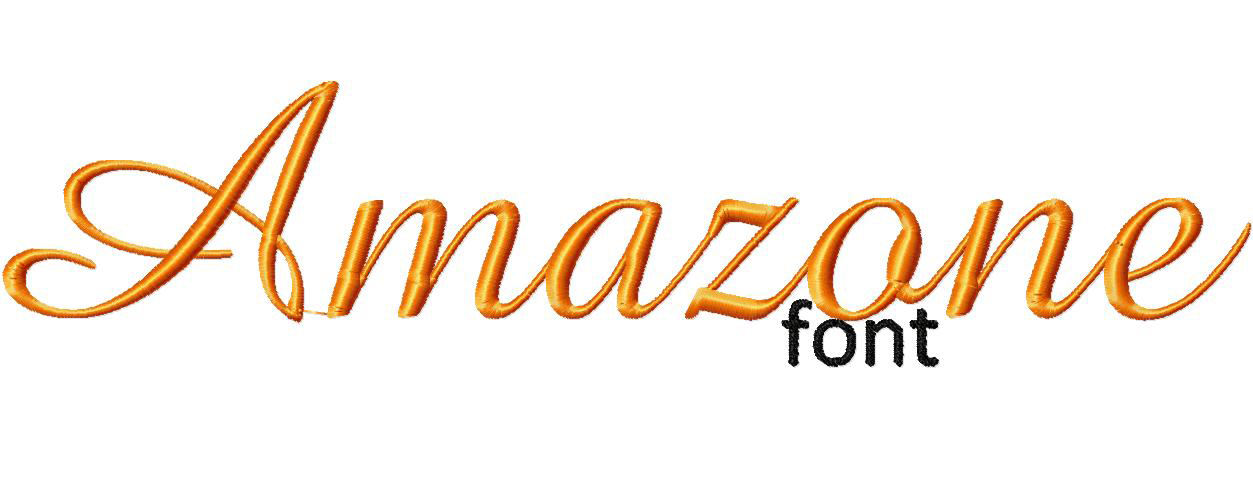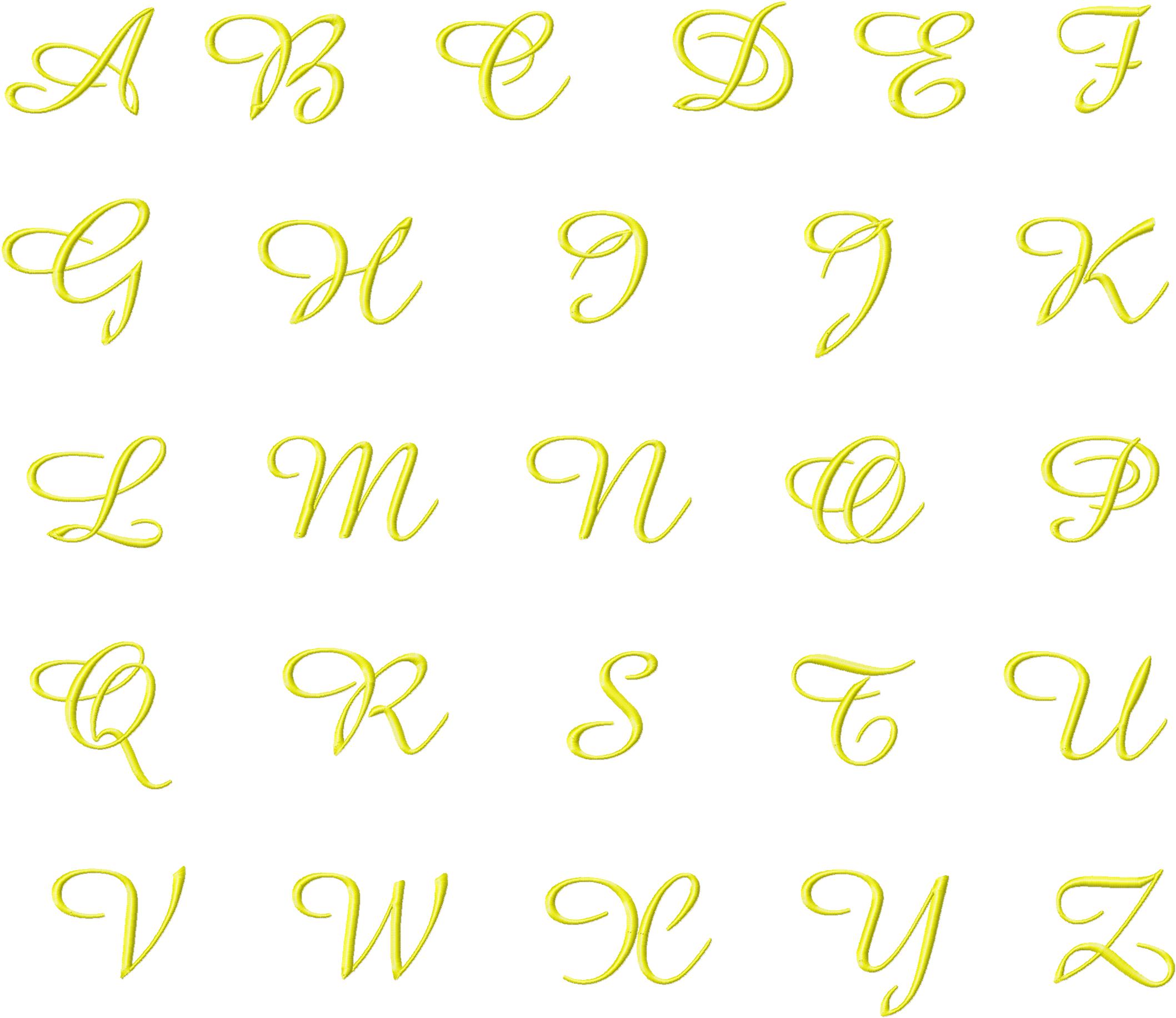
Choose this stylish font when looking to add a bit of class to any monogramming project!
The Amazone Machine Embroidery Font Set includes all Uppercase and Lowercase Letters, Numbers and Bonus Punctuation in all of the following sizes: 1″ 2″ & 3″